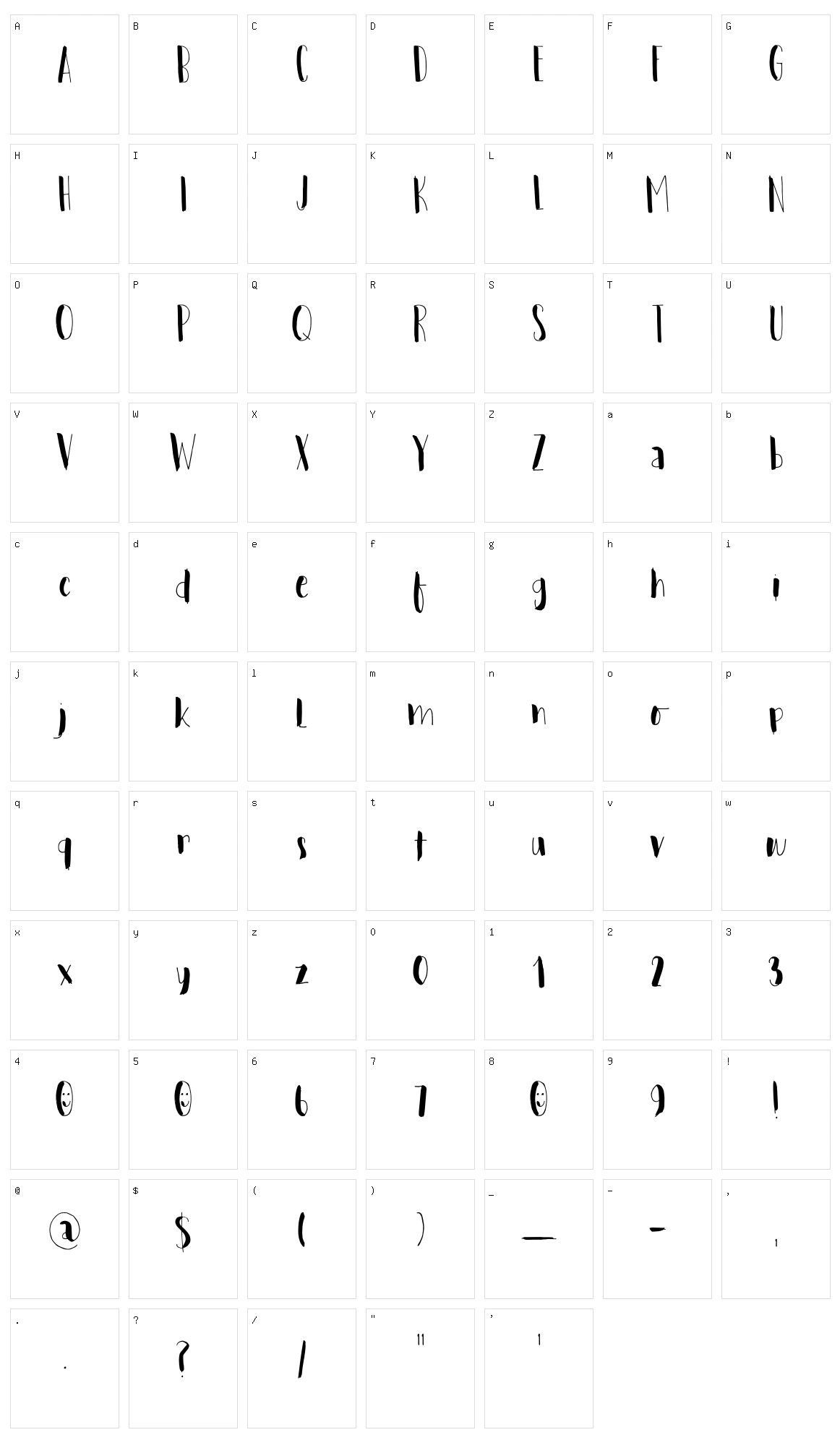
The free font Woebegone is carefully designed by Hanoded, showcasing a thoughtful balance of creativity and usability and falls under the Script font style. When you download the ZIP file, it contains only 1176.51 KB of font files, making it lightweight and quick to download. Please review the license details below to understand permitted usage and distribution rights. If license information is not available, we recommend using this font for personal projects only or contacting the author directly for commercial usage permissions.